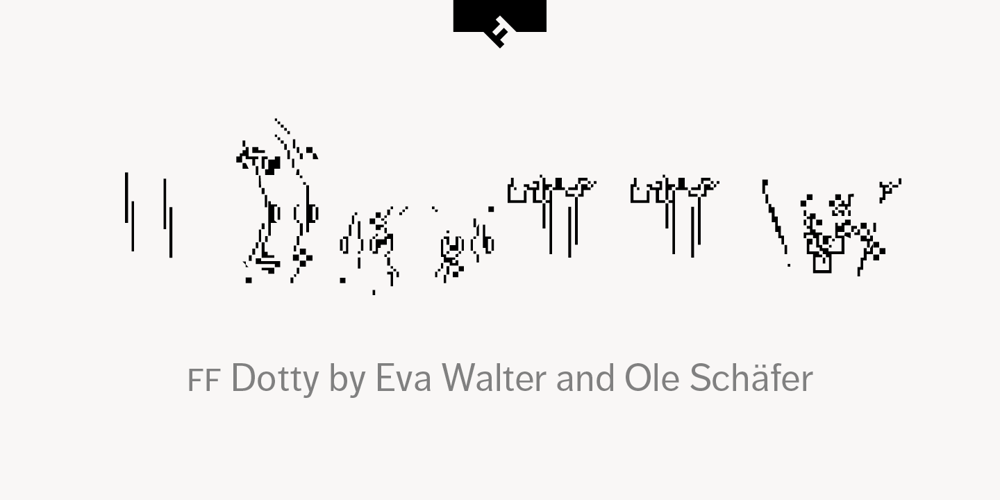
FF Dotty Font Family was designed by Ole Schäfer, Eva Walter and published by FontFont. FF Dotty contains 3 styles and family package options. German type designers Eva Walter and Ole Schäfer created this display FontFont in 1996. The family contains 3 weights and is ideally suited for advertising and packaging, festive occasions, editorial and publishing as well as poster and billboards. FF Dotty provides advanced typographical support with features such as ligatures. It comes with proportional oldstyle figures.